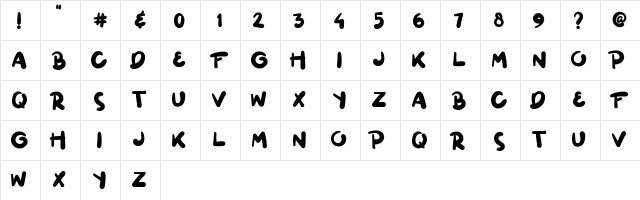
Ginuks Regular
Design Context for Ginuks Typeface
Ginuks is a composed and adaptable typeface that performs quietly and consistently across a wide range of design contexts.